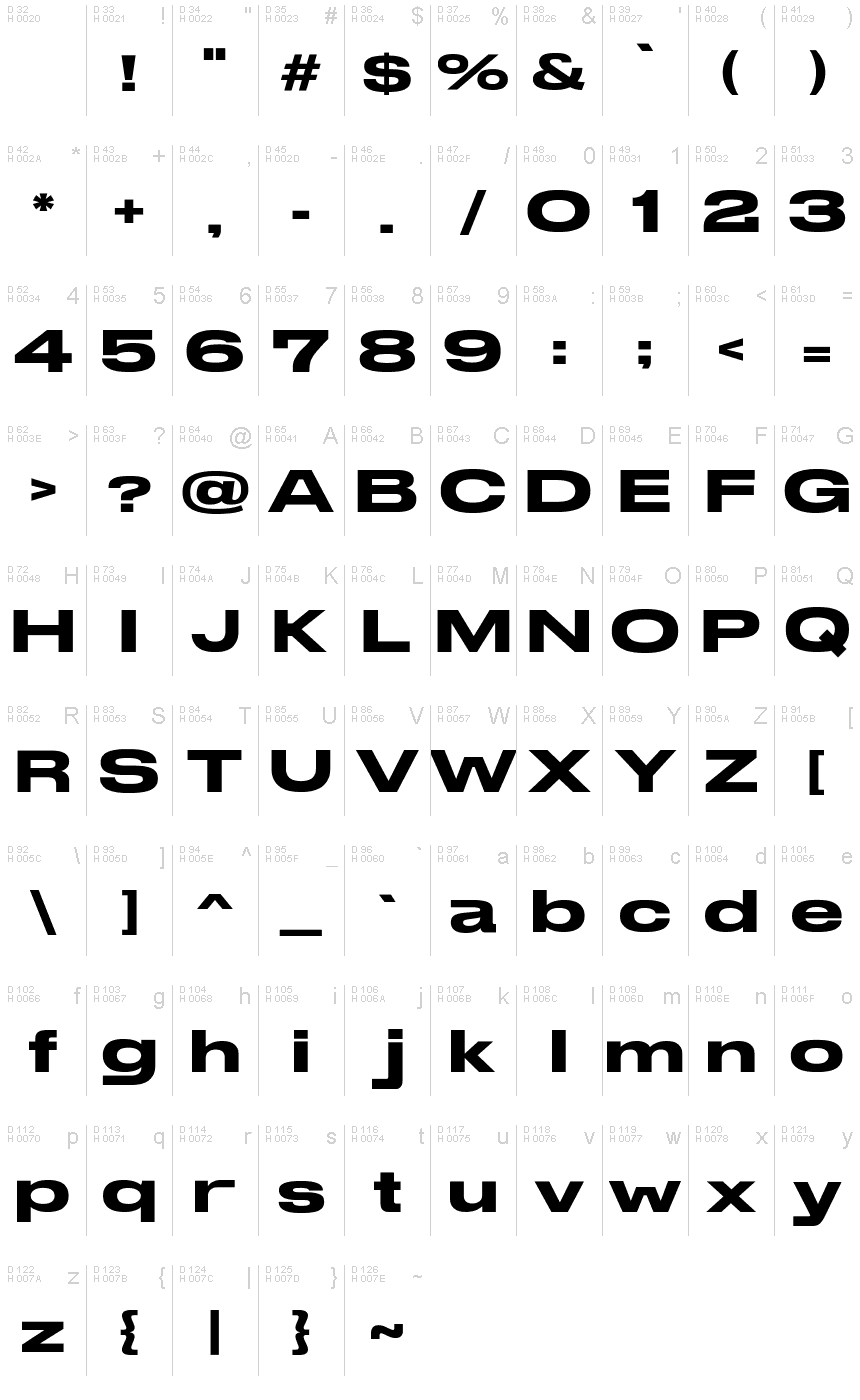
Stretch Pro Font Is A Popular, Sans Serif Type Font That Can Be Used On Any Device Such As Pc, Mac,.
$ free for personal use. Stretch sans font is a basic helvetica that is turned wide, this is a cool sans serif font with a futuristic and modern theme. Download stretch pro regular otf (400) font.
With Its Neat And Beautiful.
Web by installing or using this font, you are agree to the product usage agreement: Web stretch pro futuristic typeface is a basic helvetica that is turned wide, this is a cool sans serif font with a futuristic and modern theme. Web examples of the stretch pro regular font can be found on the font site azfonts.
Web Stretch Pro Futuristic Typeface Is A Basic Helvetica That Is Turned Wide, This Is A Cool Sans Serif Font With A Futuristic And Modern Theme.
It Also Has A Beautiful Modern Design, Which Can Easily.